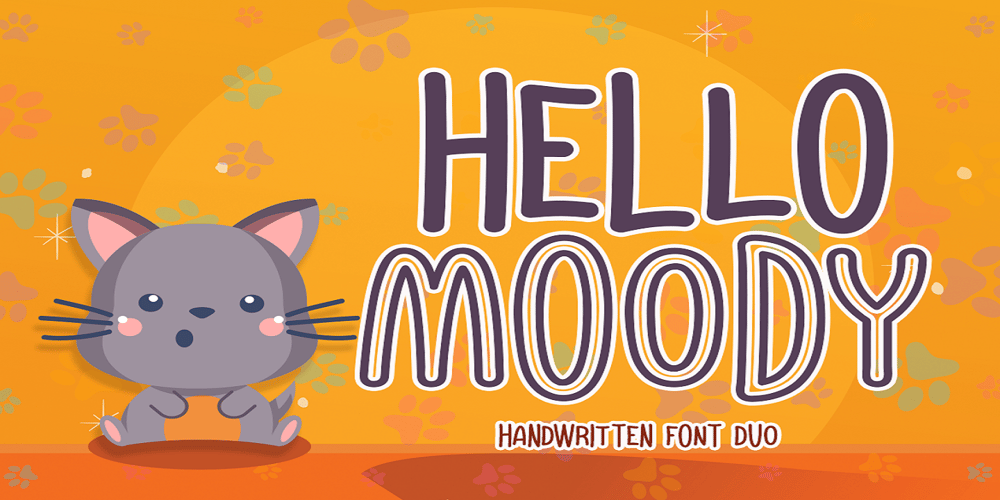
Moody Font Family was designed by Saiful Anwar and published by Sealoung. Moody contains 2 styles and family package options. Hello Moody is a fun and pretty handwritten font. This font has two forms. Fall in love with his very versatile style which has an up and down style with each letter. Use it to create gorgeous wedding invitations, beautiful stationery art, great social media posts, logos, posters, comics, funny stories and more!